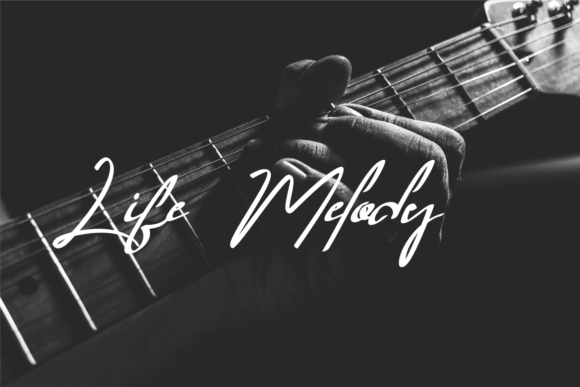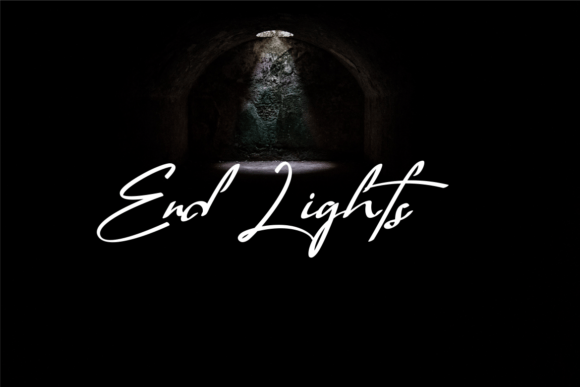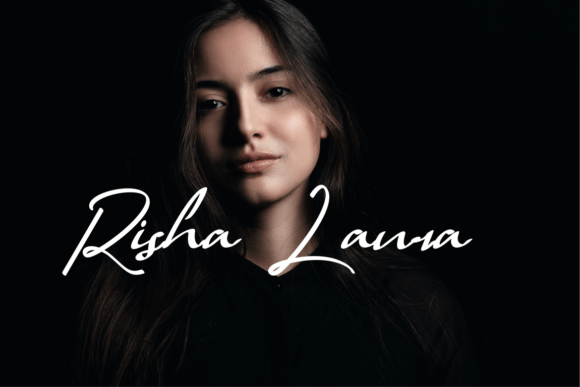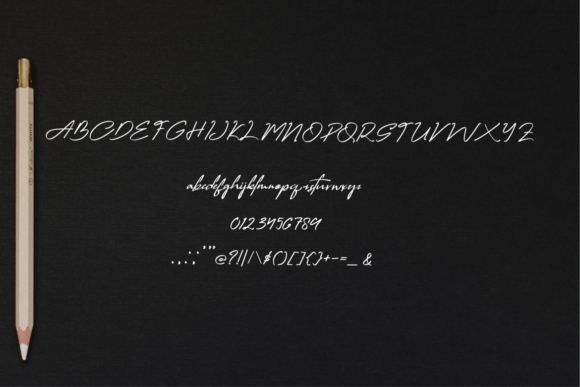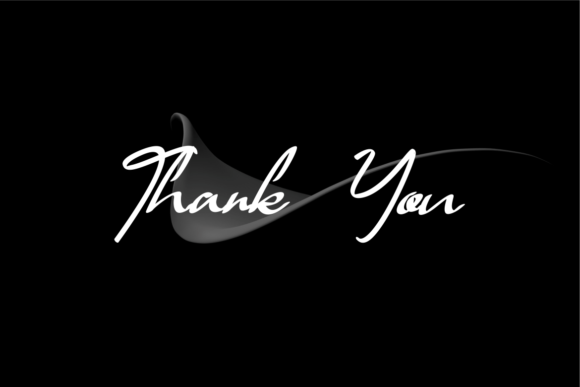
Introduction to Qirfahuja Font
As a designer, there’s nothing quite like the thrill of bringing a creative project to life. Whether it’s a wedding invitation, a birthday card, or a social media post, the right font can make all the difference. And that’s exactly why we’re excited to introduce you to the Qirfahuja Font – a modern and stylish handwritten script font that’s sure to add a touch of romance and personality to your designs.
Imagine you’re working on a project and you need a font that’s both elegant and playful. A font that will make your design stand out and leave a lasting impression on your audience. That’s where Qirfahuja Font comes in – a high-quality design resource that’s perfect for adding a personal touch to your creative projects.
With its dainty and joyful feel, the Qirfahuja Font is a must-have for any designer looking to elevate their work. And the best part? It’s available for free download, making it an accessible and valuable resource for designers of all levels.
Key Features of Qirfahuja Font
- High-quality design: The font features a unique and stylish design, perfect for adding a touch of elegance to your project.
- Unique characteristics: The Qirfahuja Font features a distinctive and creative design, making it perfect for designers looking for a unique font for their project.
Honest Review: Qirfahuja Font
What works well: ✨ The Qirfahuja Font offers a high quality, elegant design that’s perfect for headings and titles. It also has a transparent background, making it easy to pair with any background image or color. I appreciate the versatility of this font and its ability to elevate any design project.
Limitations: ⚠️ While the Qirfahuja Font is an excellent choice for headings and titles, it may not be the best option for body text. The font can be a bit difficult to read in smaller sizes, and some of the characters may appear slightly awkward.
Overall impression: I’m impressed with the Qirfahuja Font and would definitely recommend it to designers looking for a high-quality, elegant font for their creative projects.
- High-quality, elegant design
- Perfect for headings and titles
- Excellent design resource for creative projects
How to Use Qirfahuja Font
The Qirfahuja Font is a unique and versatile design resource ideal for creative projects that require a high-quality font with a transparent background.
Some common use cases for the Qirfahuja Font include creating unique titles, headings, and body text for presentations, social media graphics, and website designs.
Tips for getting the most out of the Qirfahuja Font include experimenting with different font sizes, colors, and styles to create a cohesive design look.